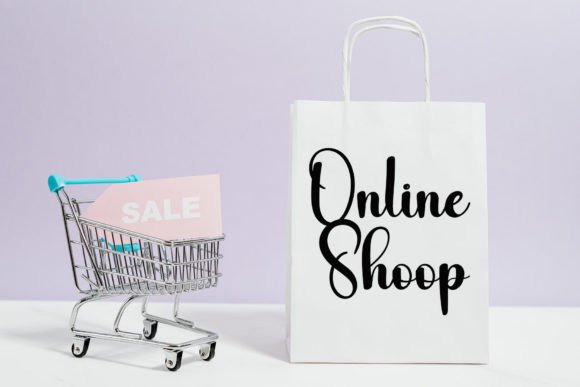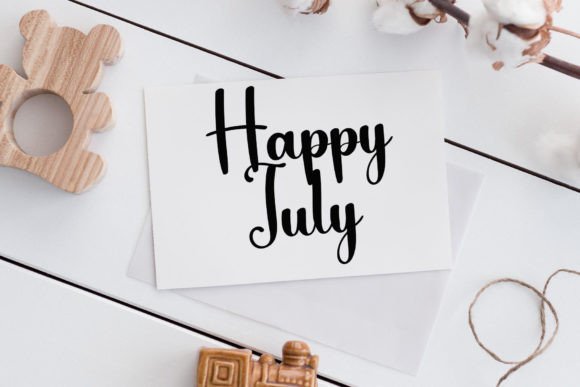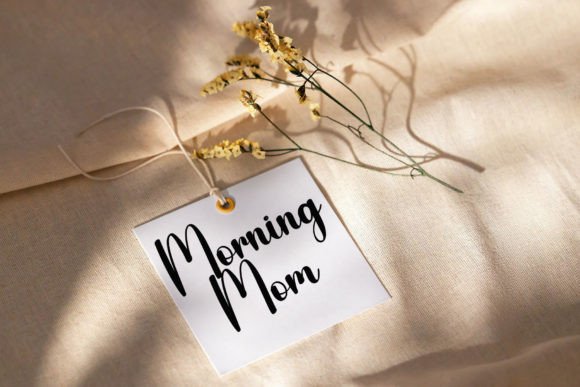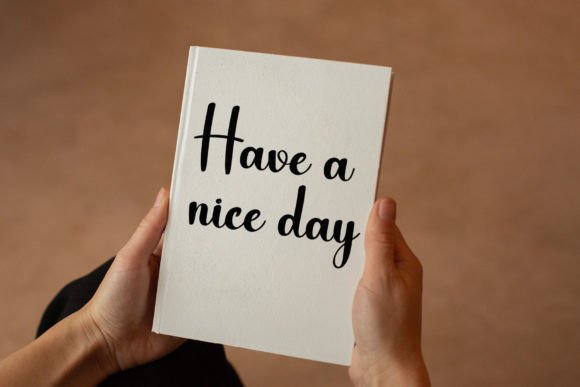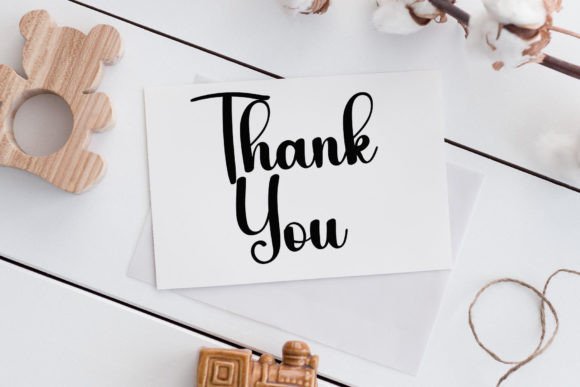
Introduction to Friday Font
As you sit in front of your computer screen, staring blankly at a blank canvas, the creative juices start to flow. The idea for your next project begins to take shape, and you can almost envision the perfect combination of colors, textures, and typography. But what really brings it all together is the font – the unsung hero of any design project. That’s where the Friday Font comes in – a sweet and beautiful handwritten font that’s about to take your design to the next level.
With its unique, dancing characters that effortlessly glide along the baseline, the Friday Font is the perfect addition to any creative project. Whether you’re working on a high-end branding project or a free download for a client, this font is sure to add a touch of luxury and sophistication. And with its transparent background, you can easily incorporate it into any design without worrying about background distractions.
Key Features of Friday Font
- Unique, stylish design perfect for adding a touch of personality to your work
Honest Review: Friday Font
As a designer, I’m always on the lookout for high-quality design resources that can elevate my creative projects. The Friday Font caught my attention, and I was excited to give it a try.
Here are some things that work well with the Friday Font:
- ✨ Beautiful typography: The font has a unique, modern design that adds a touch of sophistication to any project.
- ✨ Versatile: The font can be used for a variety of projects, from digital designs to print materials.
- ⚠️ Limited character set: The font only includes a limited number of characters, which may not be suitable for projects that require a full range of languages.
- ⚠️ No transparent background: While the font itself is high-quality, it doesn’t include a transparent background option, which can make it difficult to use in certain design scenarios.
Overall, I’m impressed with the Friday Font’s design and versatility. While it may not be perfect for every project, it’s a great addition to any designer’s toolkit. With a little creativity, I can see it being used in a wide range of creative projects.
Tips for Getting the Most Out of Friday Font
Experiment with different font sizes, colors, and combinations to create unique designs. Use the Friday Font in conjunction with other design elements to add depth and visual interest to your projects.
The Friday Font is ideal for creative projects such as social media graphics, presentations, and documents. Its high-quality design and transparent background make it perfect for use in a variety of applications.